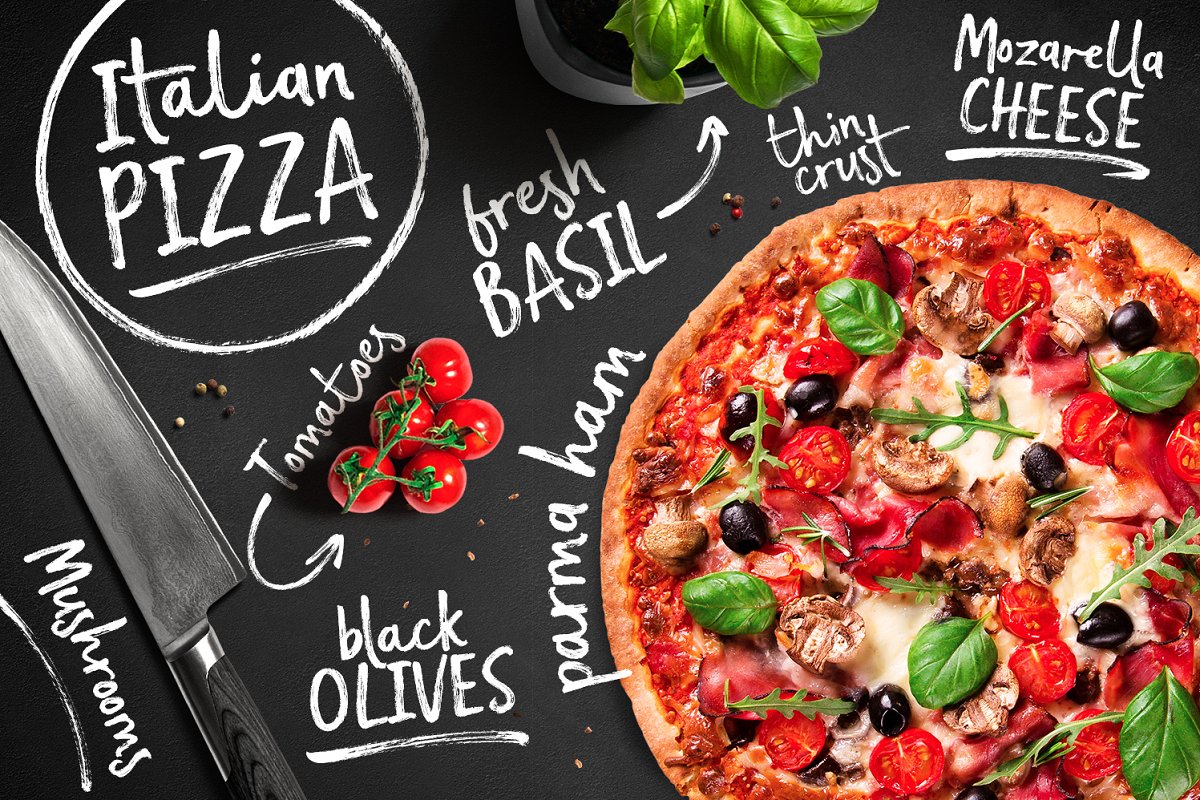
About the Tooth Nail Dry Brush Font
Introducing Tooth & Nail; a rustic & hearty hand-painted dry brush font, designed to work in both all-caps as well as lowercase, It also includes a bonus vector pack, featuring 24 elements designed to boost your text and reaffirm it’s hand-made style, With rough bold strokes and high quality textures throughout, Tooth & Nail is the perfect workhorse font for product packaging, promotional messages, handwritten quotes, home decor and branding projects
Tooth & Nail is reliable and familiar, like meeting someone for the first time and feeling like you’ve been reunited with an old friend, That’s all good stuff! But what’s included? Your download will include 2 font files and 1 vector file;1, Tooth & Nail • A handwritten brush font containing upper & lowercase characters, numerals and a large range of punctuation
2, Tooth & Nail Alt • This is a second version of Tooth & Nail, with a completely new set of lowercase characters, If you wanted to avoid letters looking the same each time to recreate a custom-made style, or try a different word shape, simply switch to this font for an additional layout option